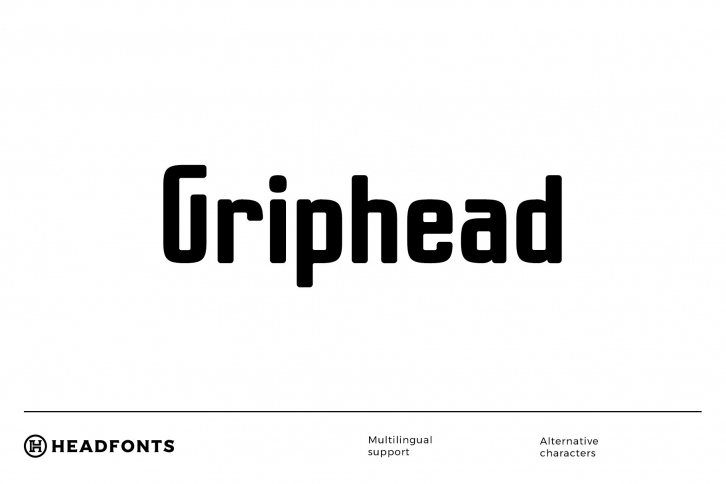
GRIPHEAD is a modern condensed font that has simple, geometric characters with  soften round edges and a modern look. Griphead has versatile, bold yet playful design allowing you to be creative with your projects. This font has 252 glyphs and extensive Latin script support and upper and lowercase sans serif characters. Griphead it's great to be used in a large variety of applications, from digital and print designs to website headers, posters, flyers and much more, this font is the best choice in creating attention-grabbing designs.